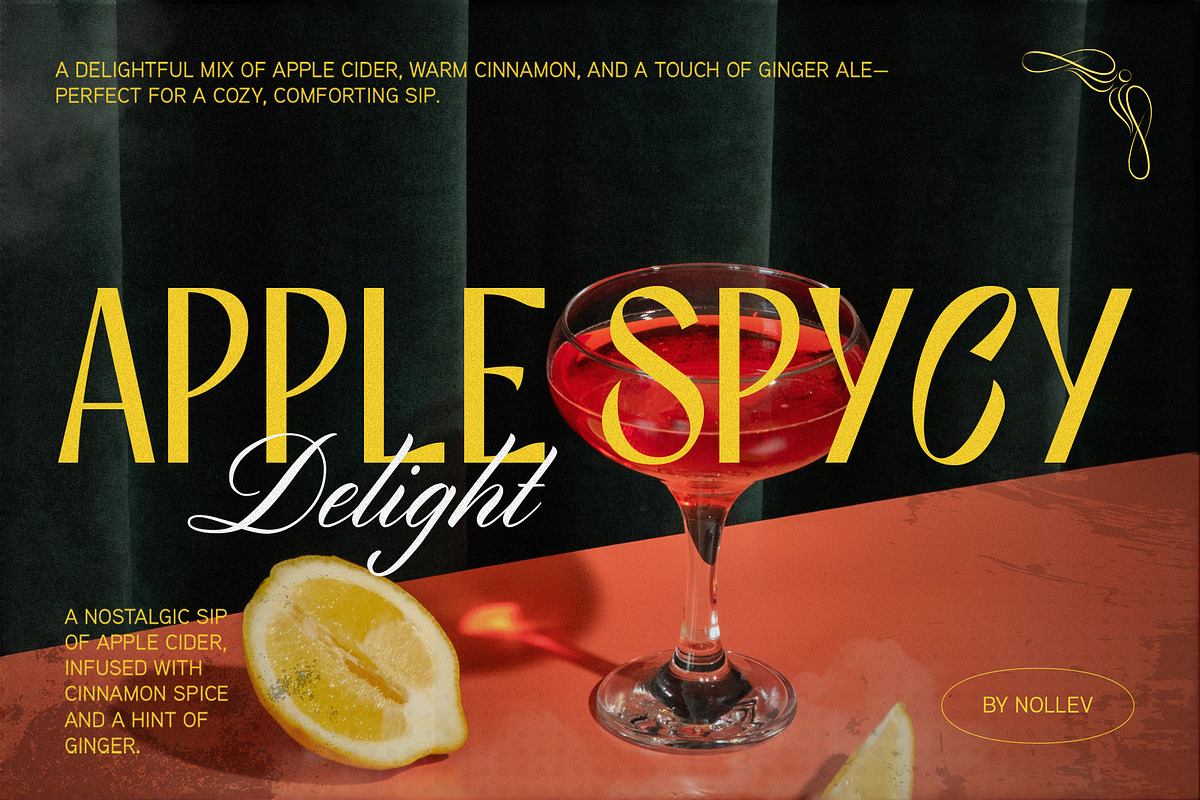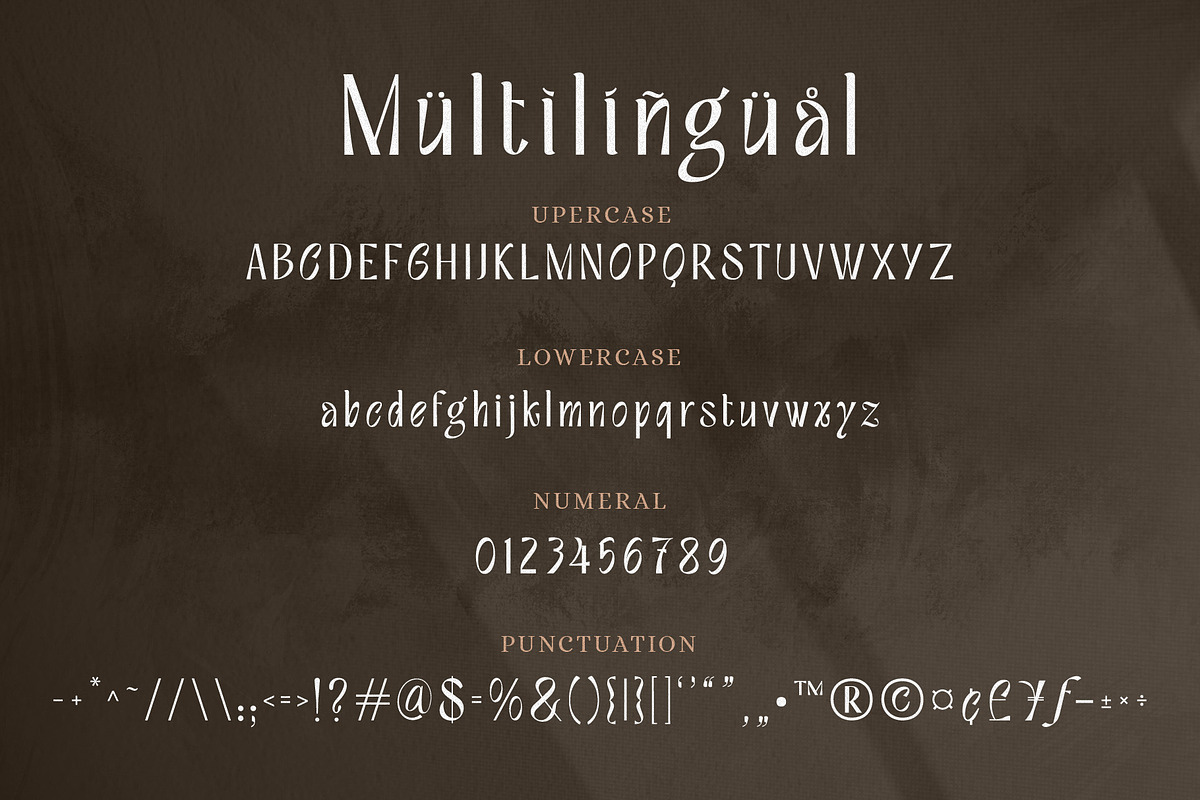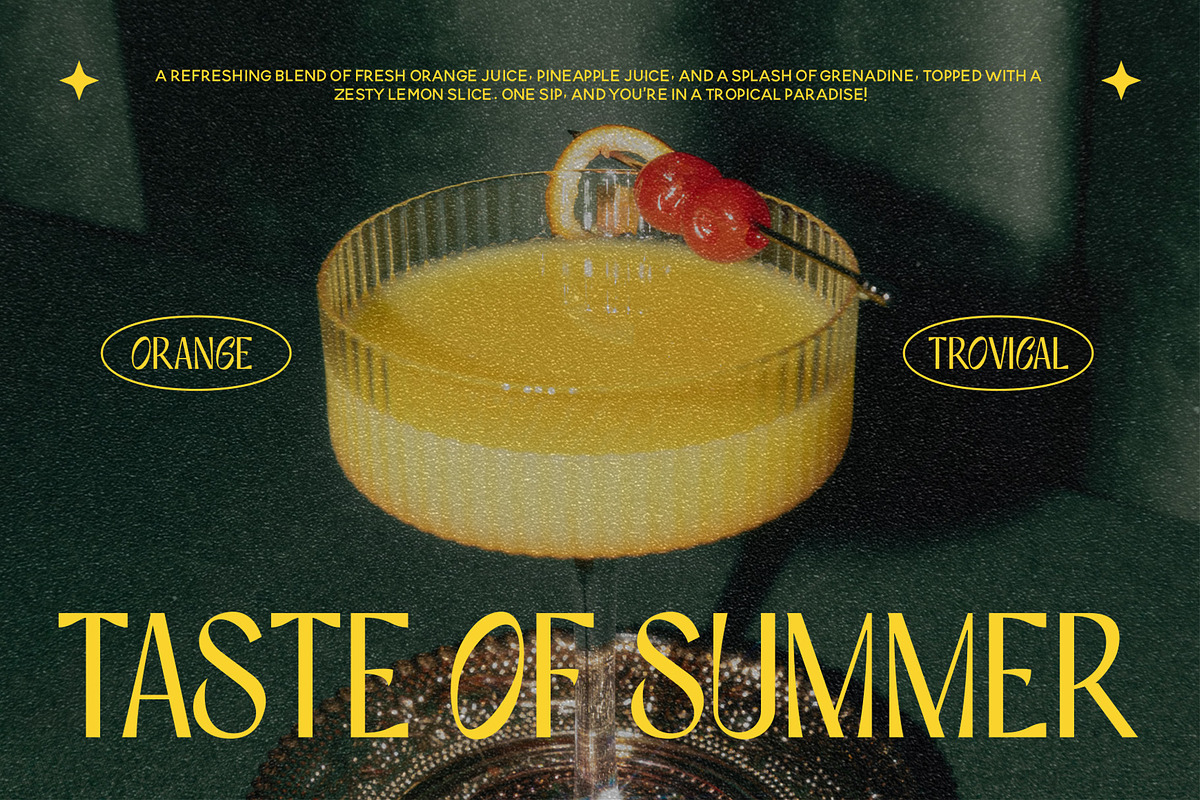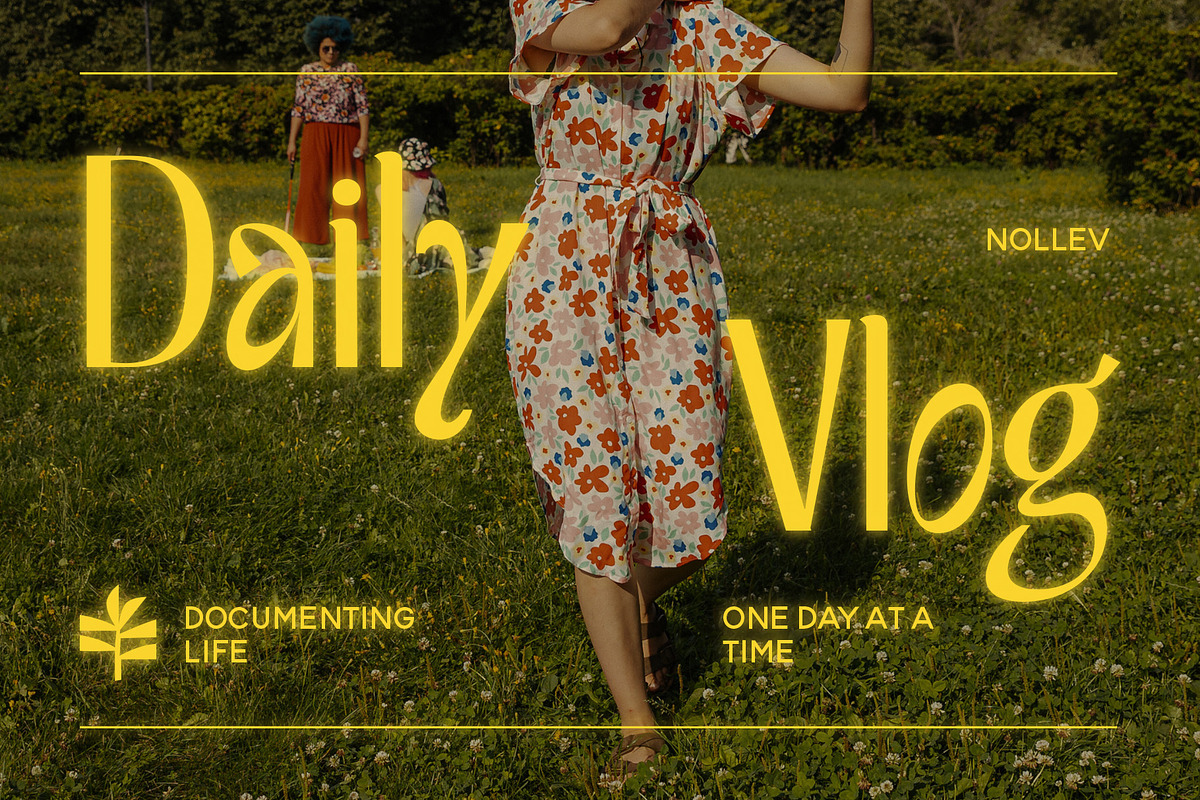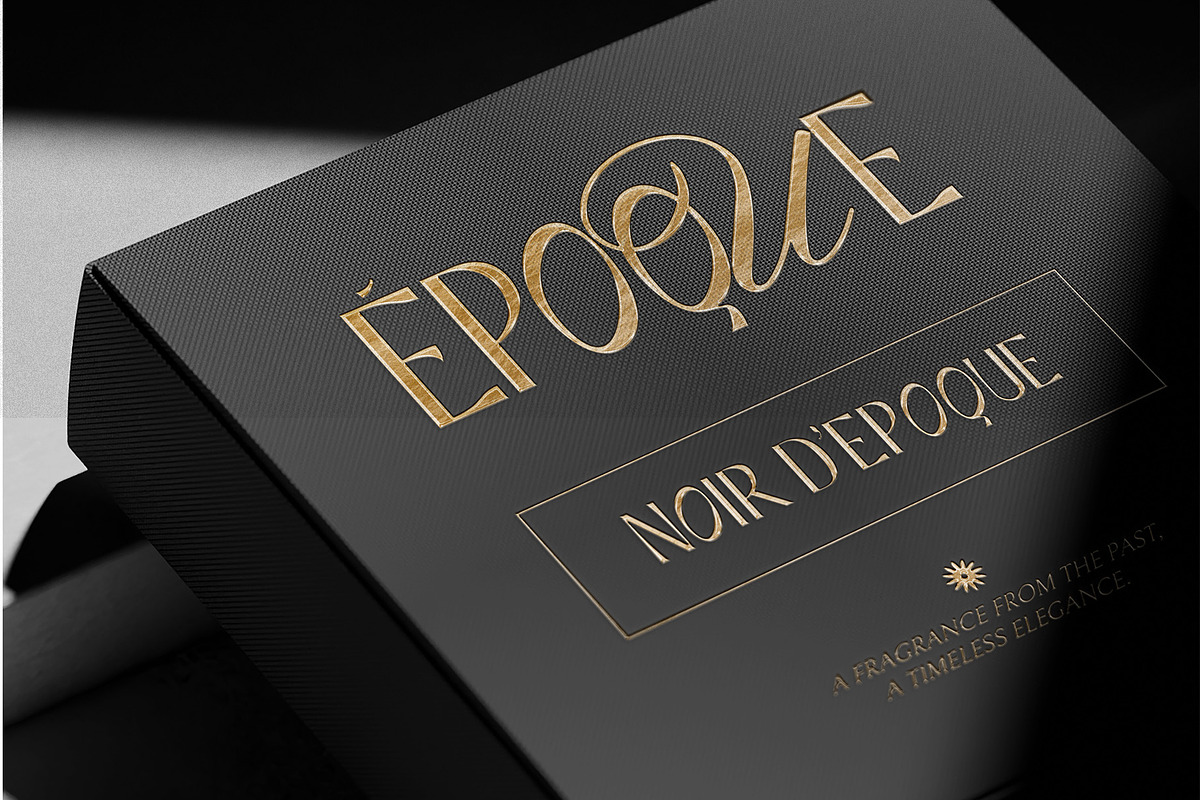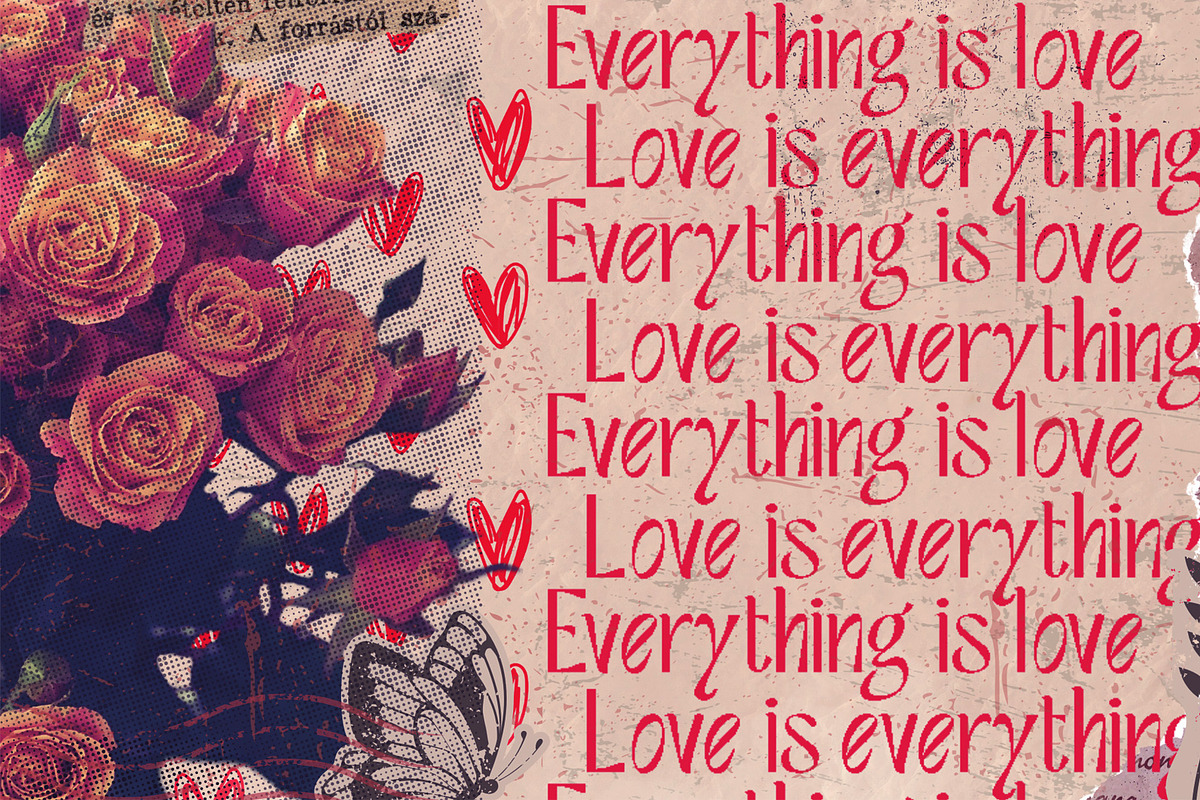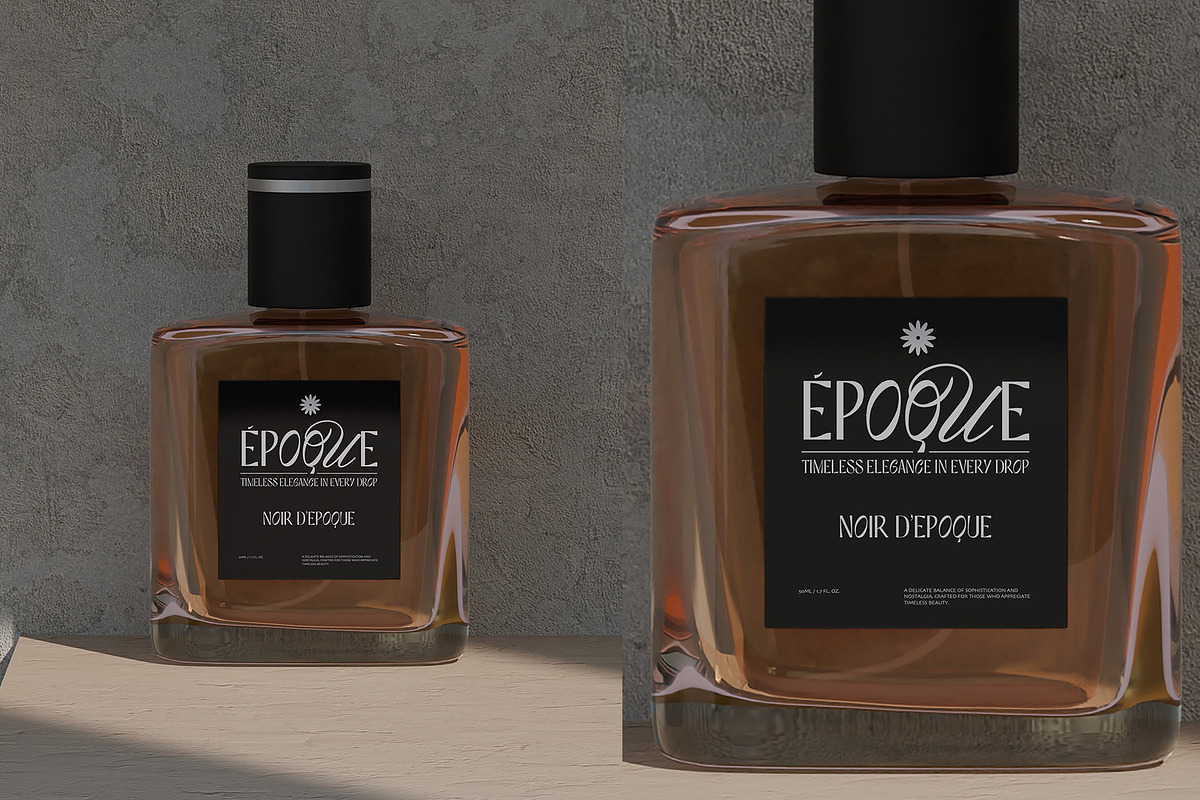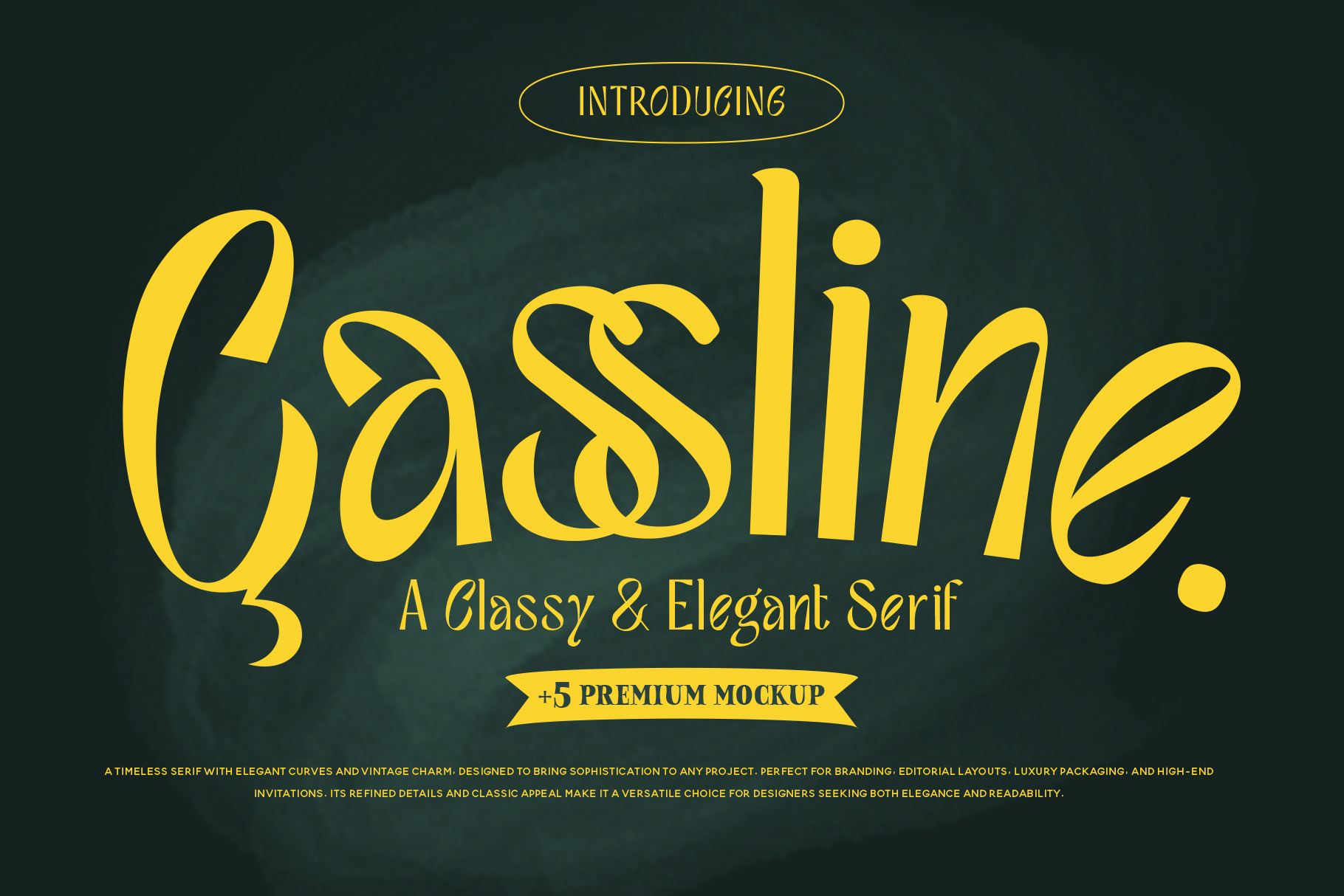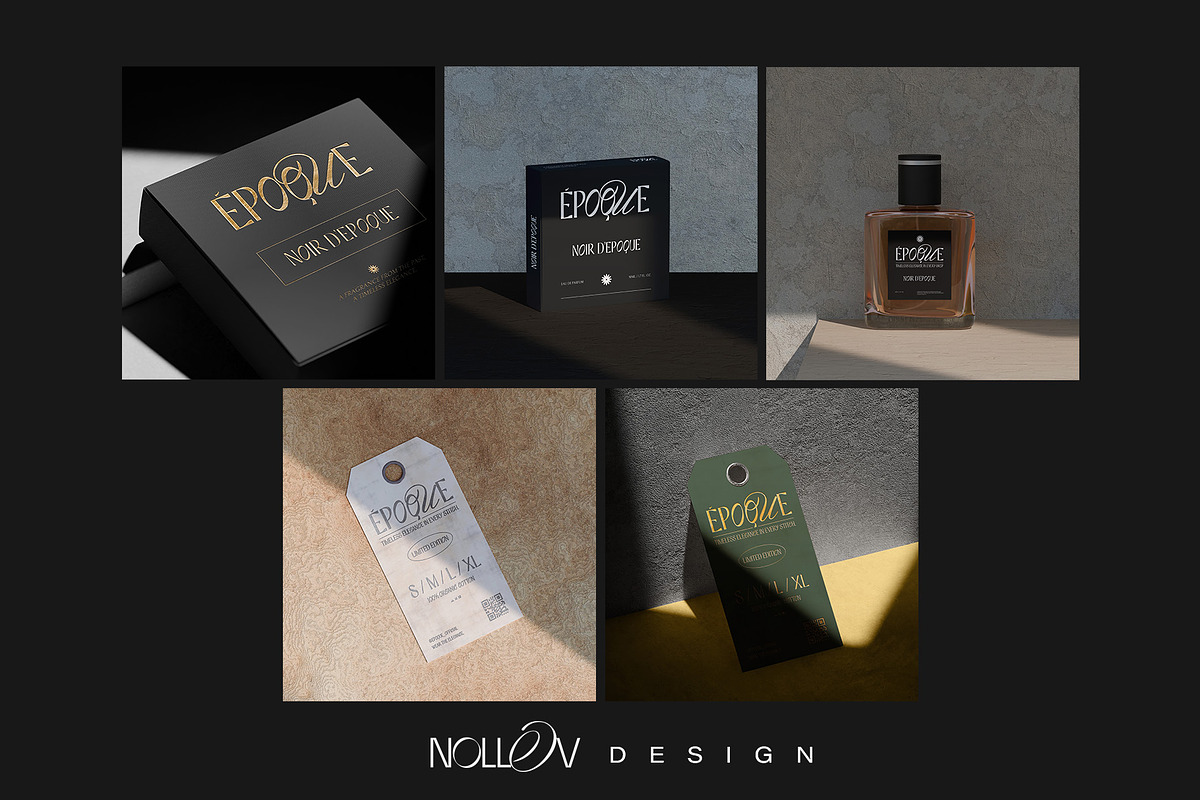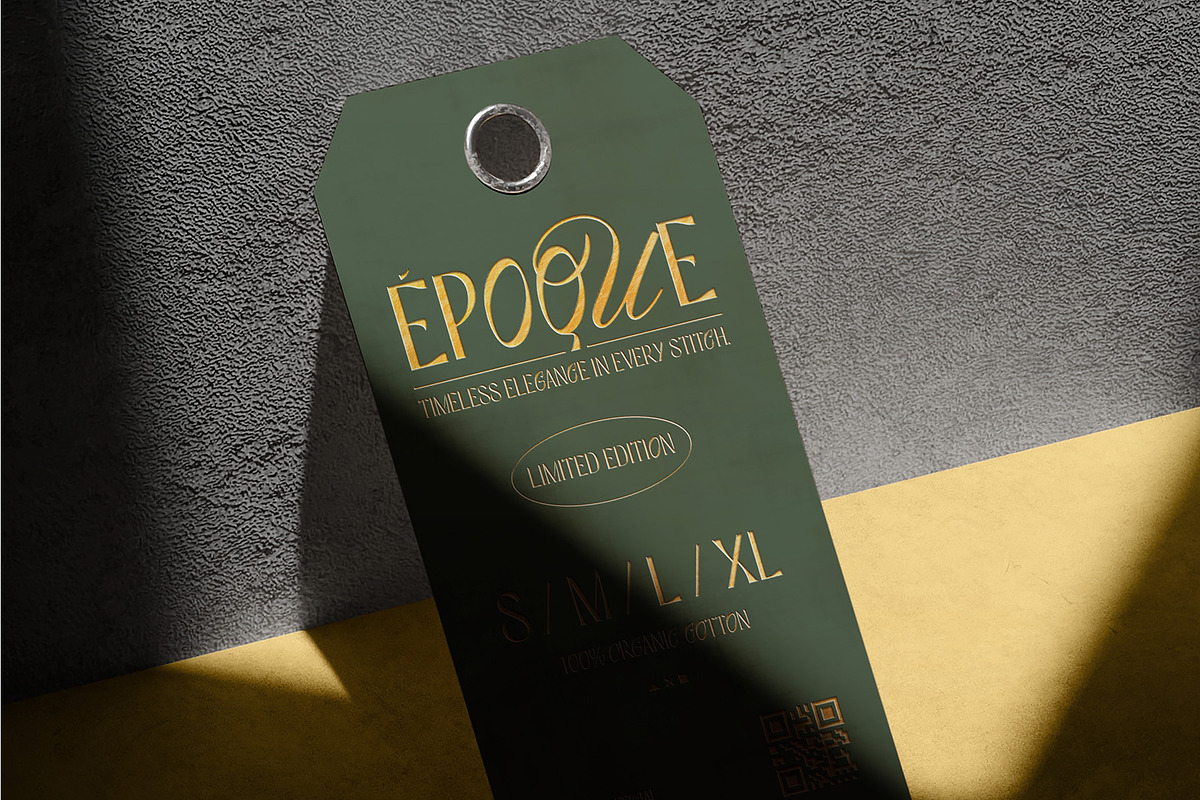
Cassline Font + 5 Premium Mockups
Elevate your branding with Cassline, a timeless serif font with elegant curves and vintage charm. Designed for luxury branding, editorial layouts, packaging, and high-end invitations, Cassline brings sophistication to any project. Its refined details and classic appeal make it a versatile choice for designers seeking both elegance and readability.
- Cassline – Classy Serif Font – A stylish and elegant serif font, perfect for premium branding.